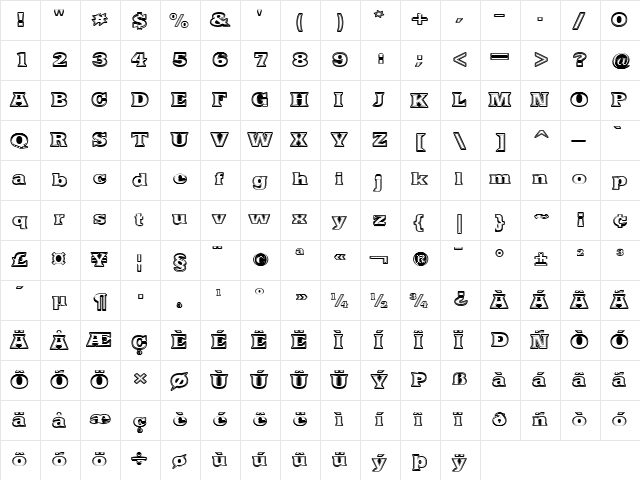
Nacimiento ExtraBold
| Foundry | deFharo |
| Designer | defharo |
Design Context for Nacimiento Typeface
Nacimiento is a composed and adaptable typeface that performs quietly and consistently across a wide range of design contexts. Its bold stroke weight gives it real presence on the page.